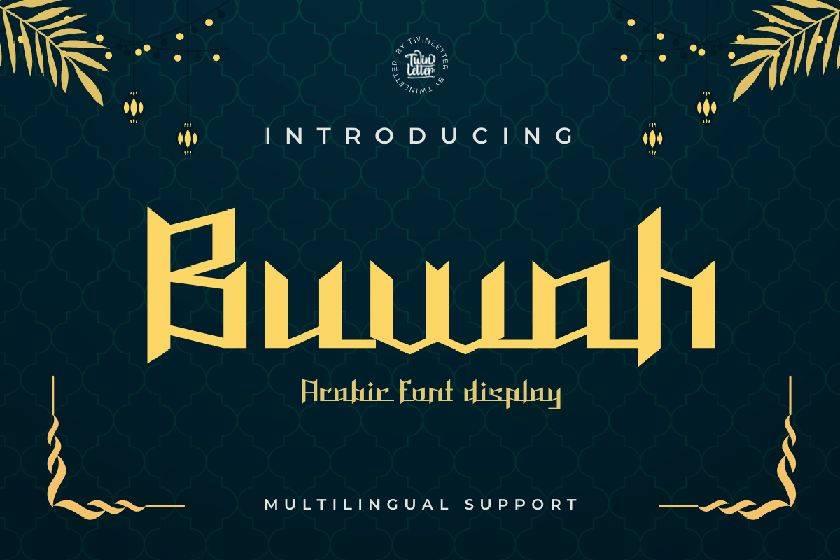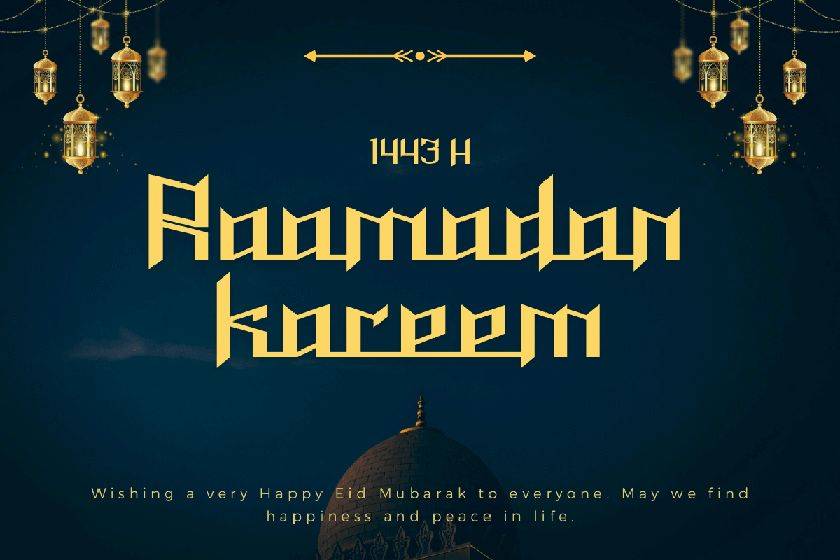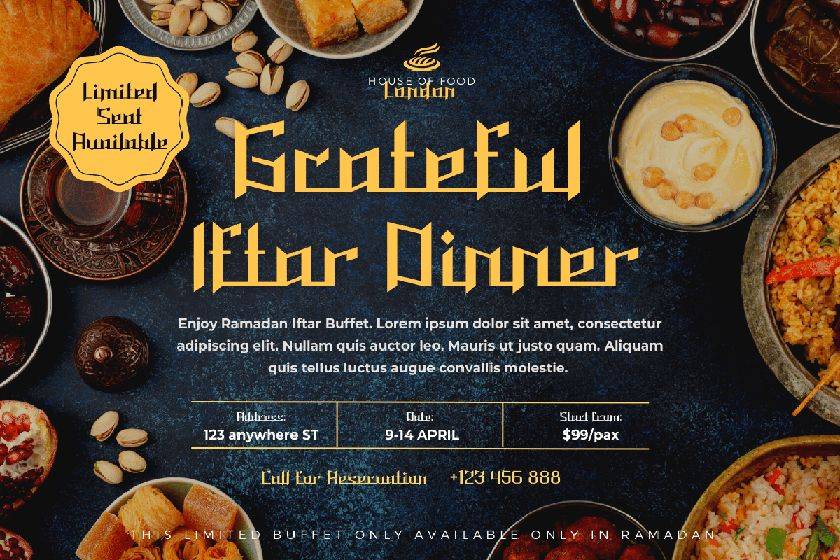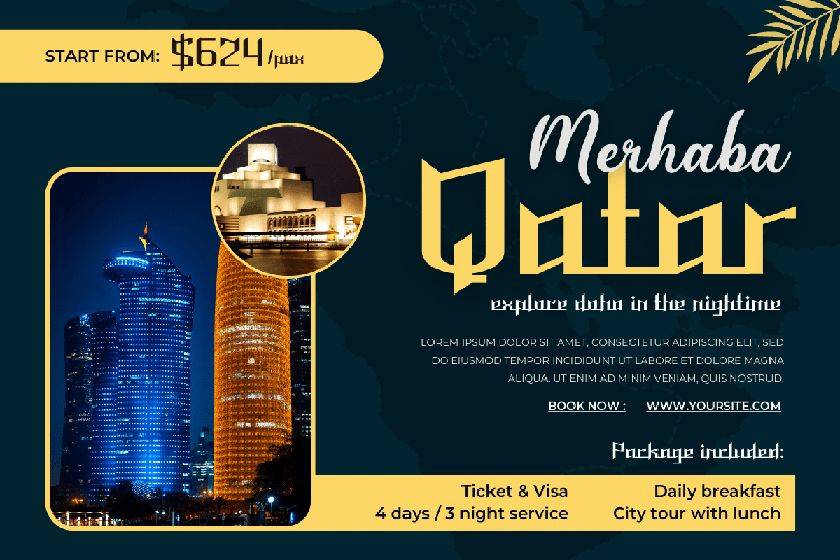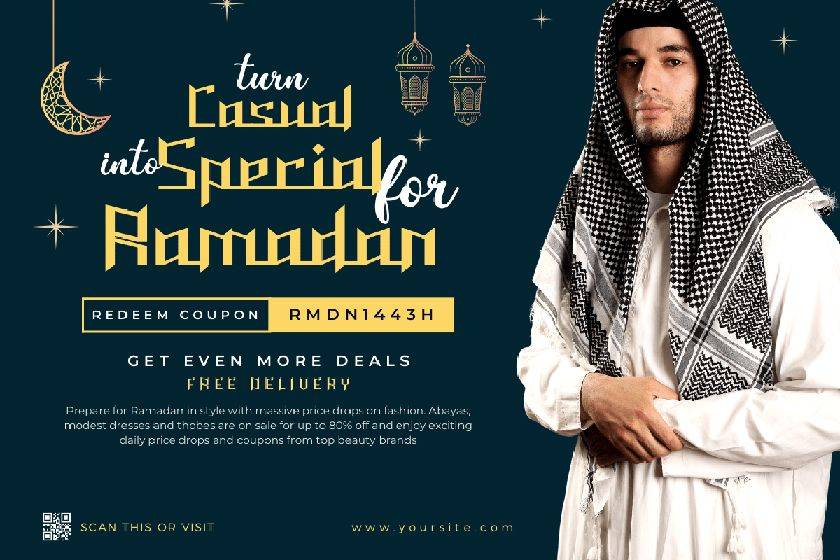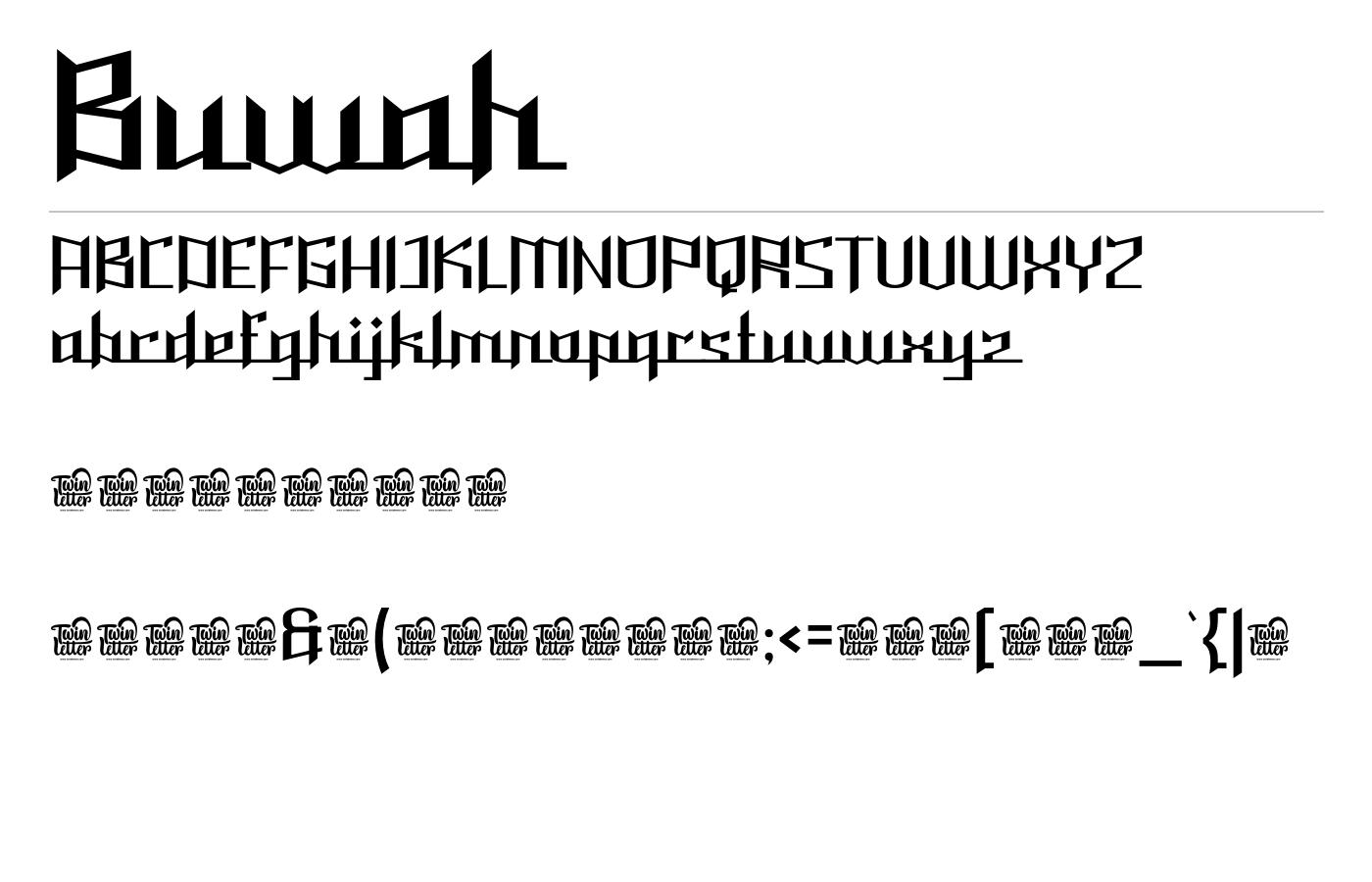
Buwah is a bold, angular display font with a distinctive gothic-inspired style, characterized by sharp, geometric strokes and a condensed structure. Its strong, edgy letterforms give it a dramatic and modern personality, making it ideal for striking headlines, logos, and creative projects that require a unique, statement-making look. This font works best where high impact and originality are essential, such as branding, posters, and editorial design.
Buwah Font
About Buwah Font